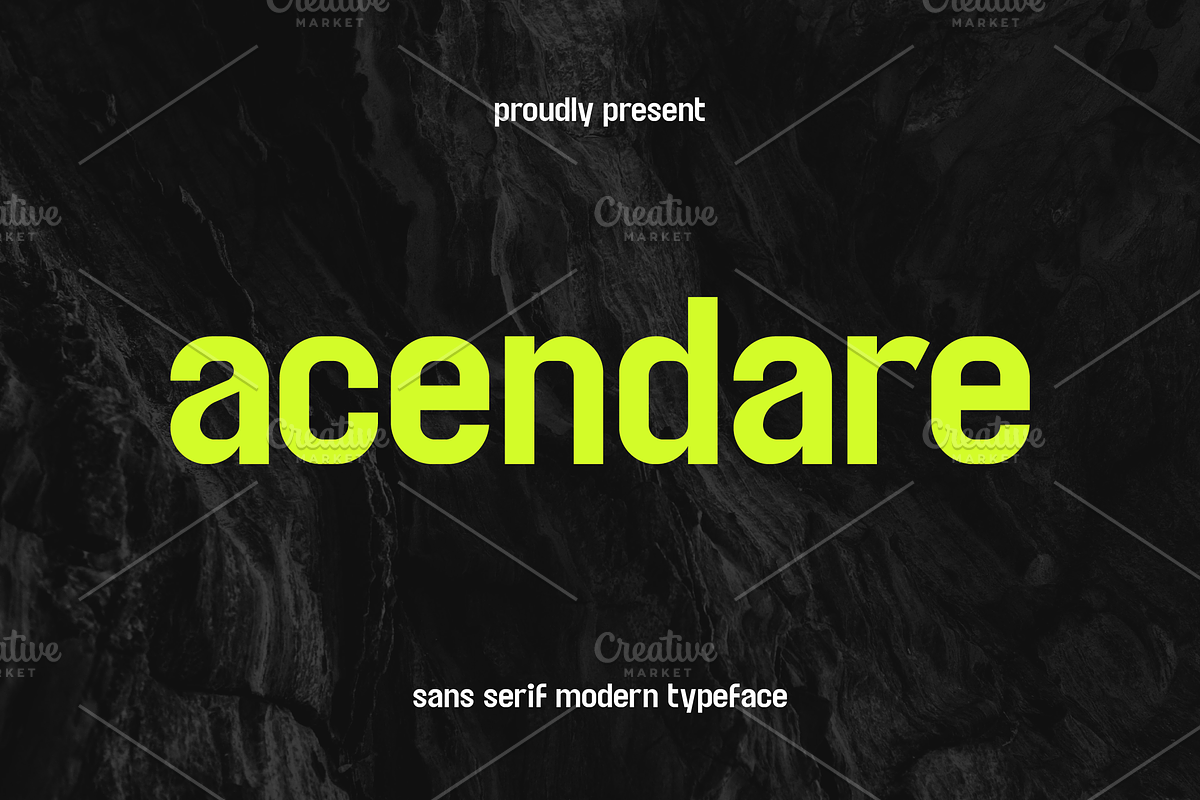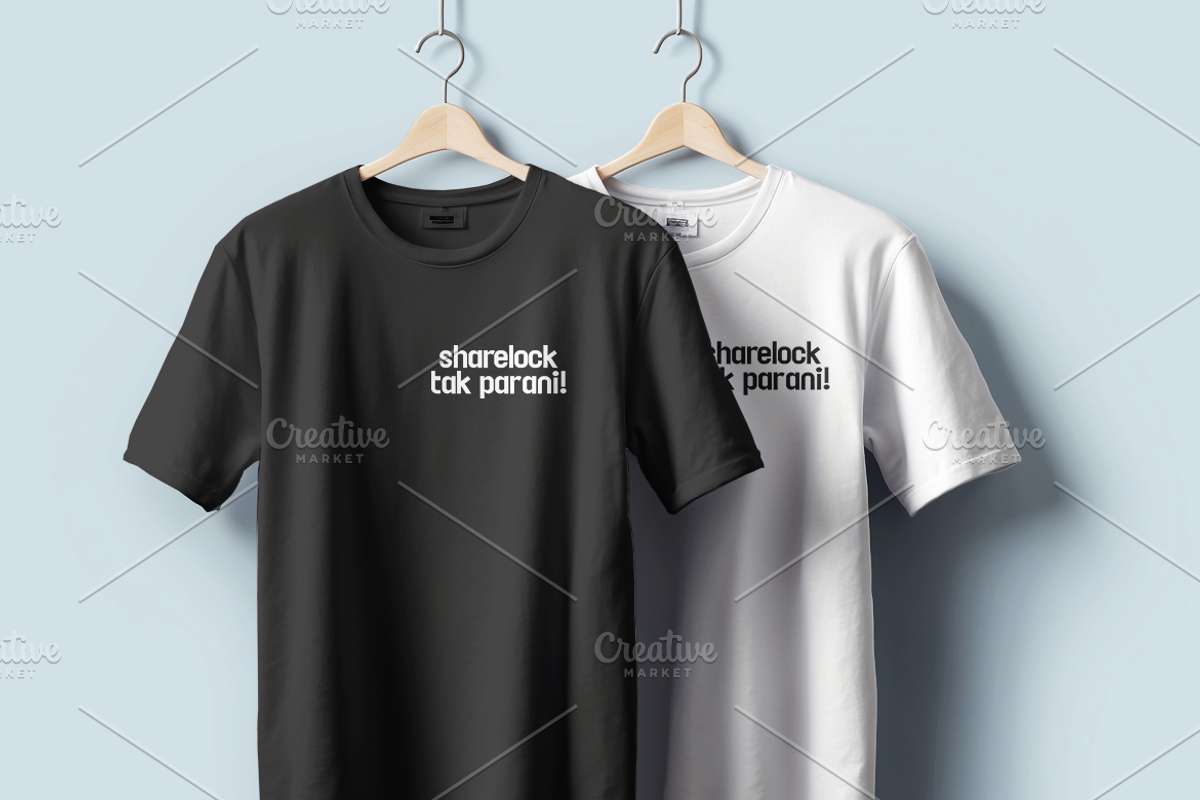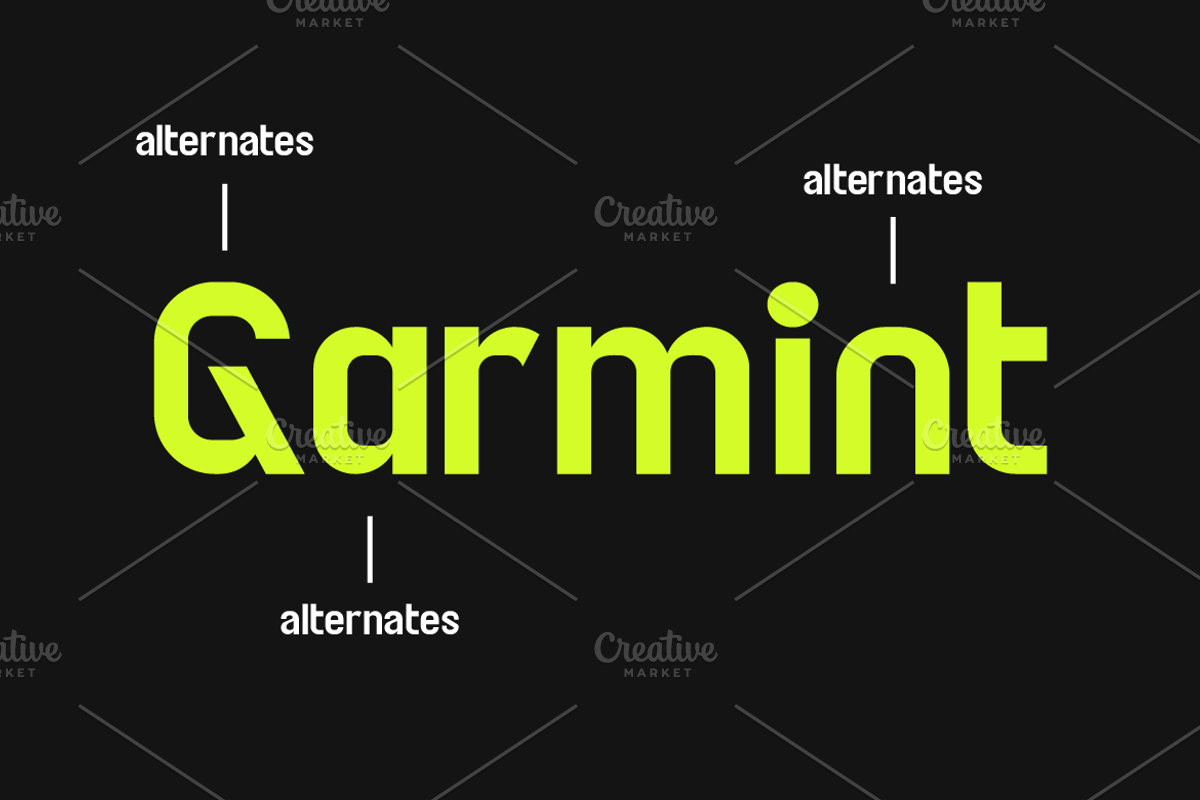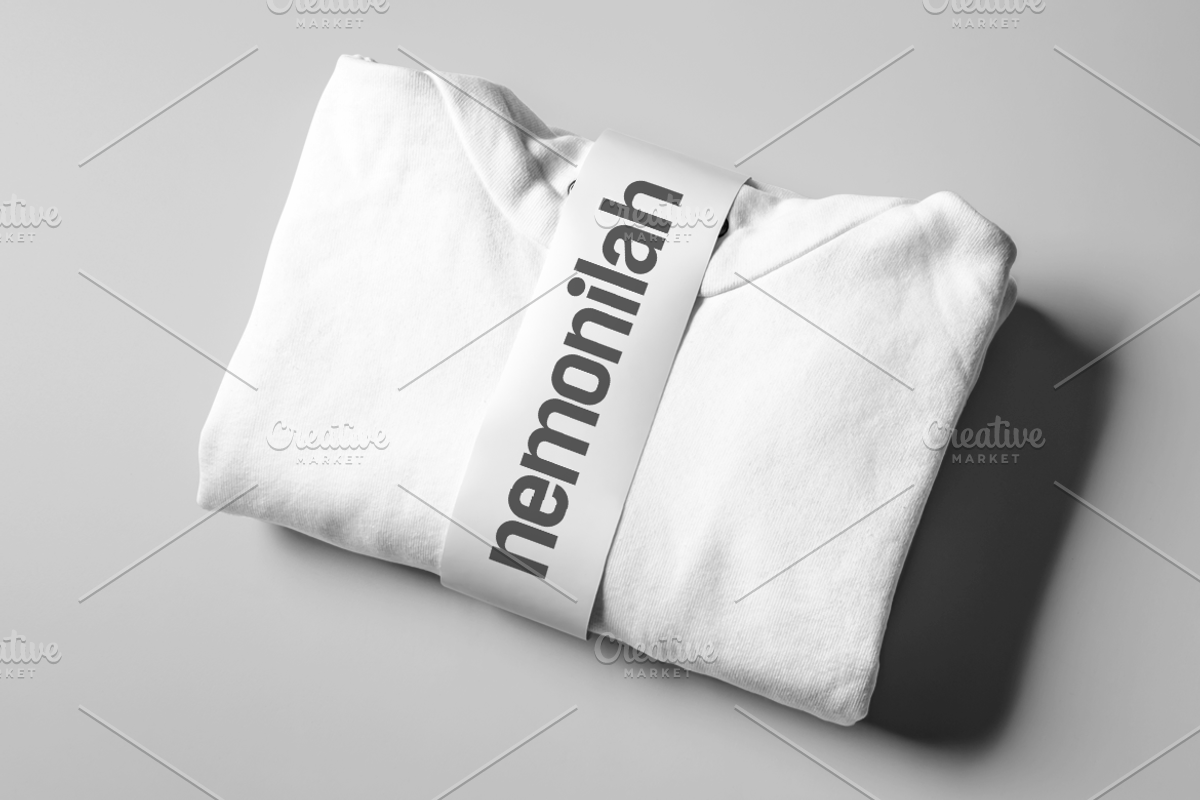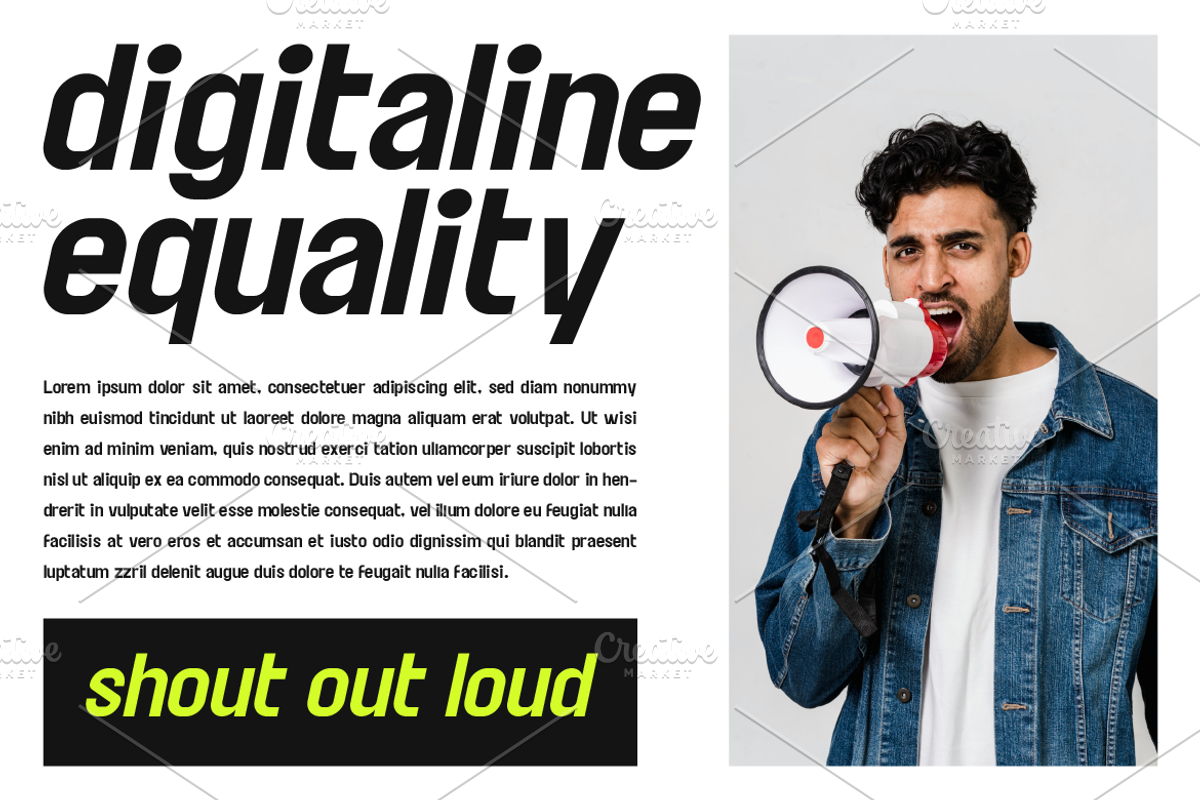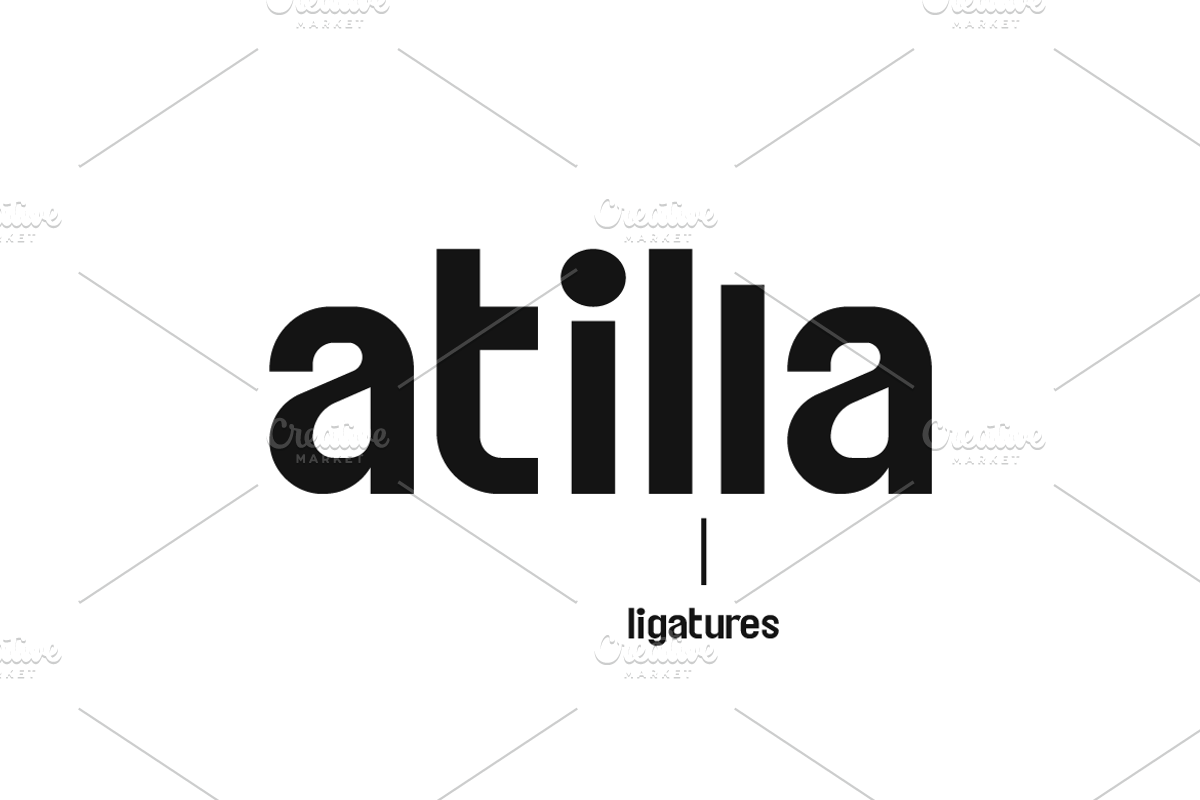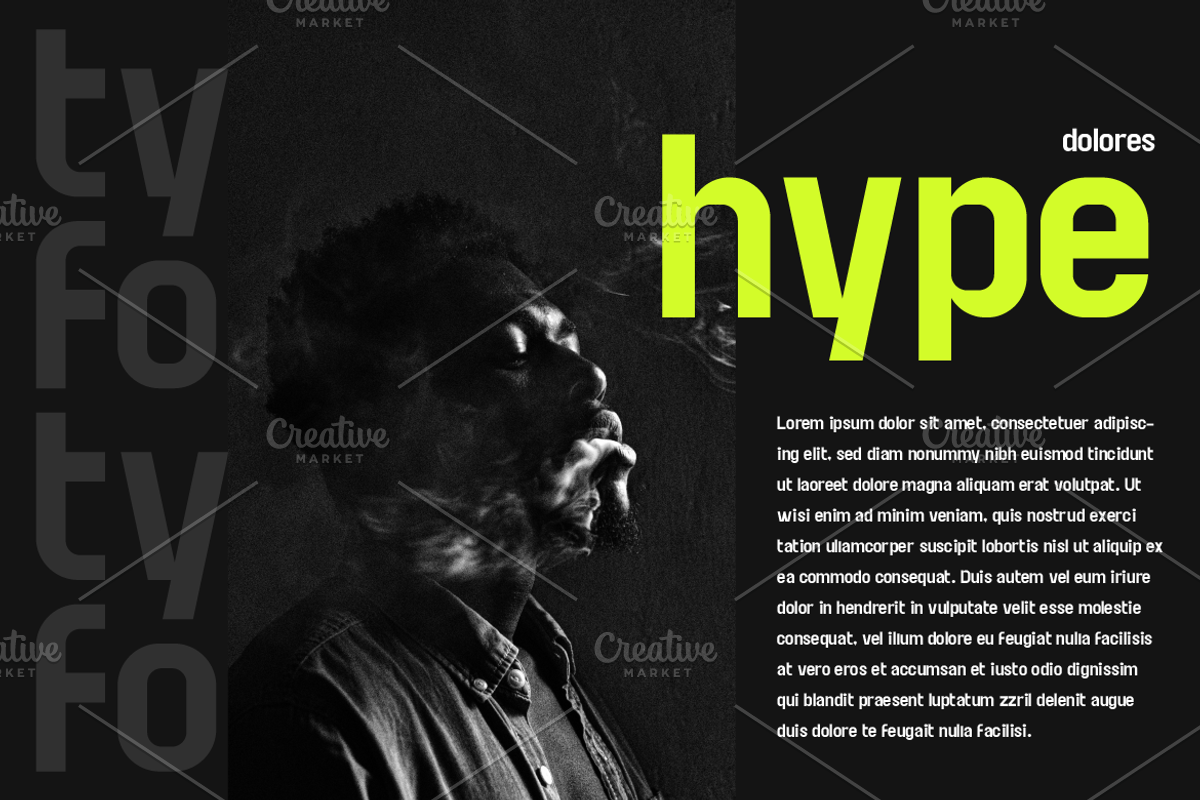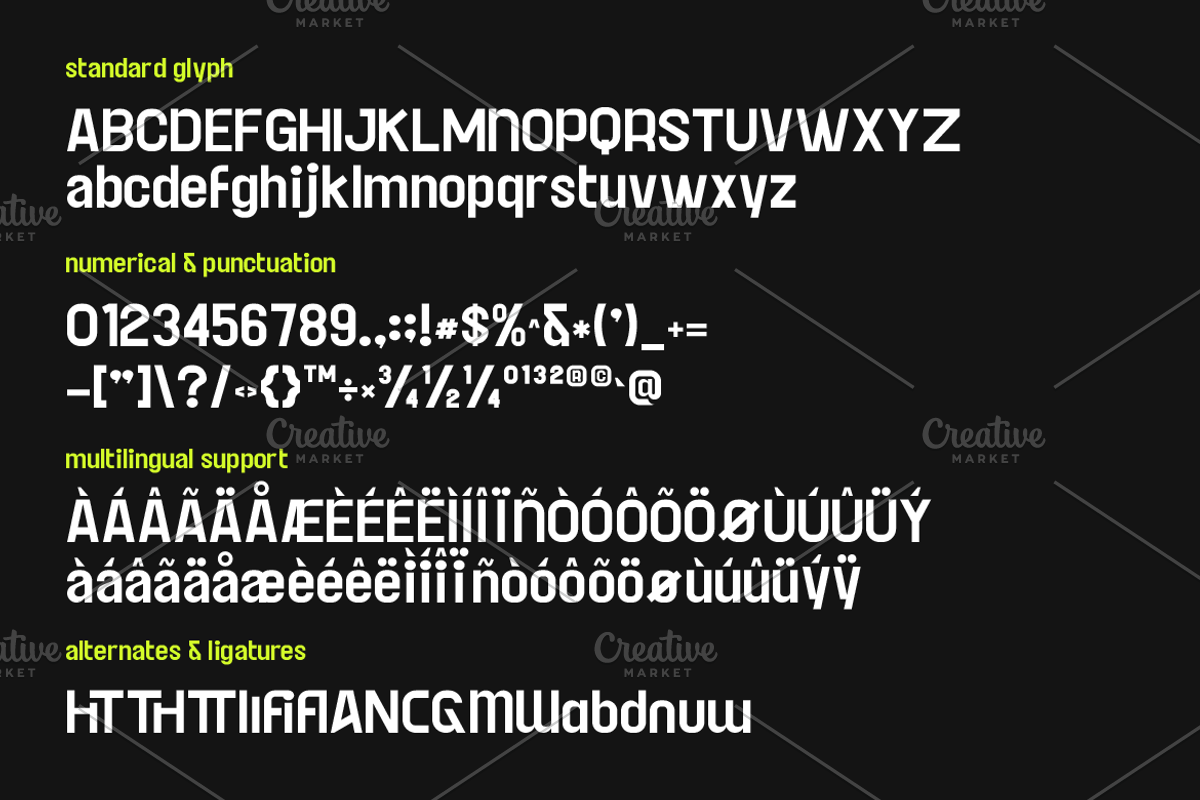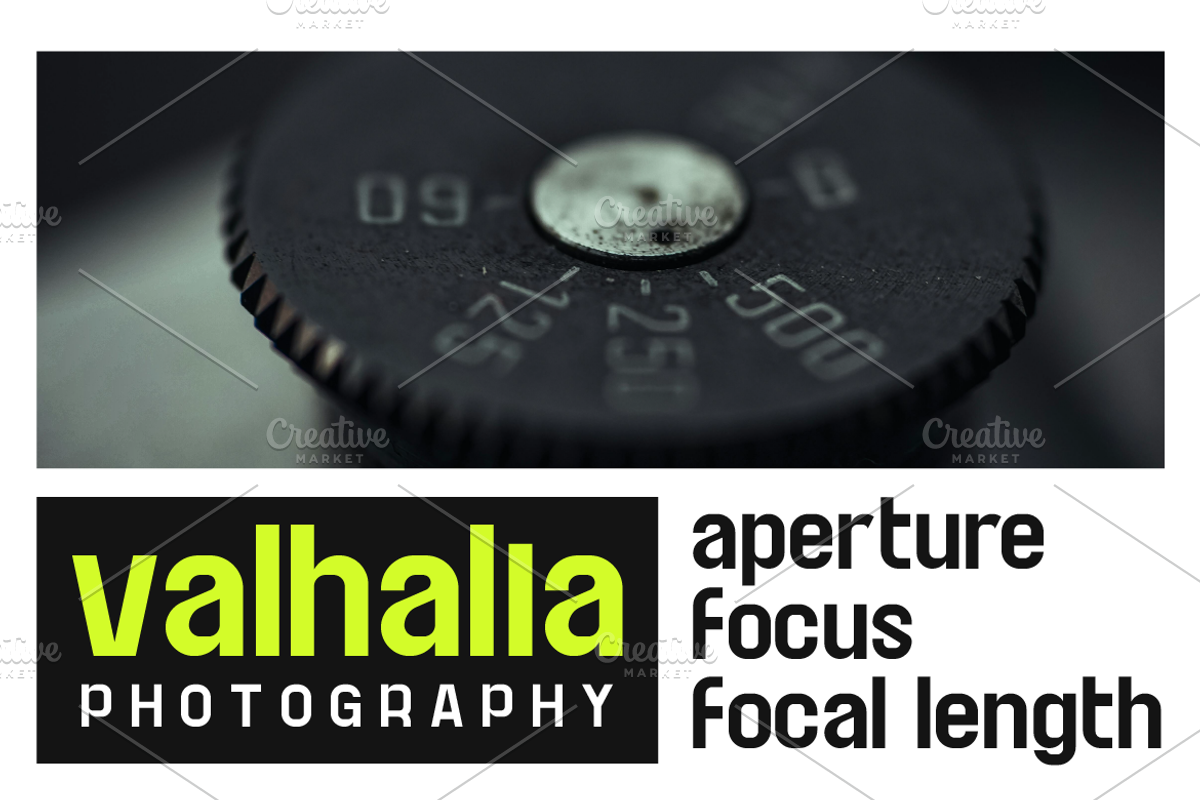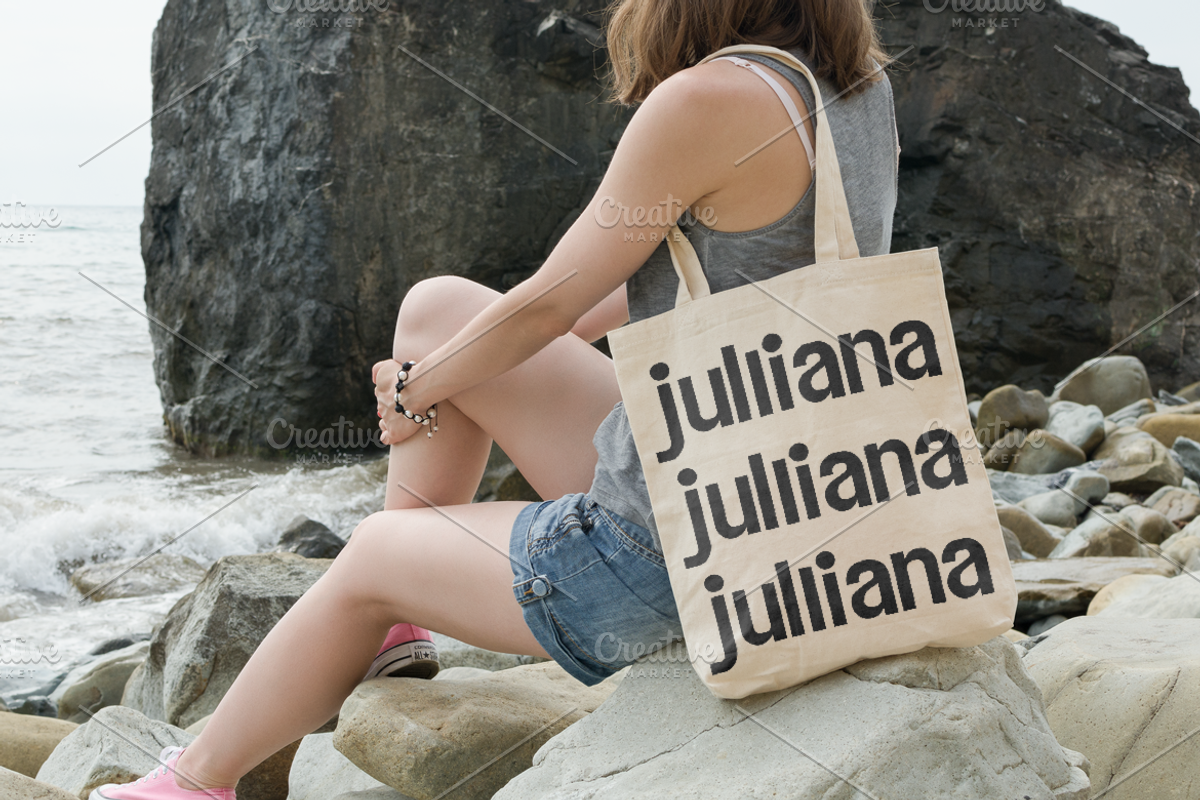
Acendare Modern Sans Serif
Acendare is a modern sans serif font crafted by Iwan Alwan, known for its unique letterforms and versatile design. With variations in uppercase and lowercase, it offers multilingual support, ligatures, and alternates, making it a perfect choice for creative projects. Whether you're designing magazines, business cards, or posters, Acendare adds a distinctive and stylish touch to your work.